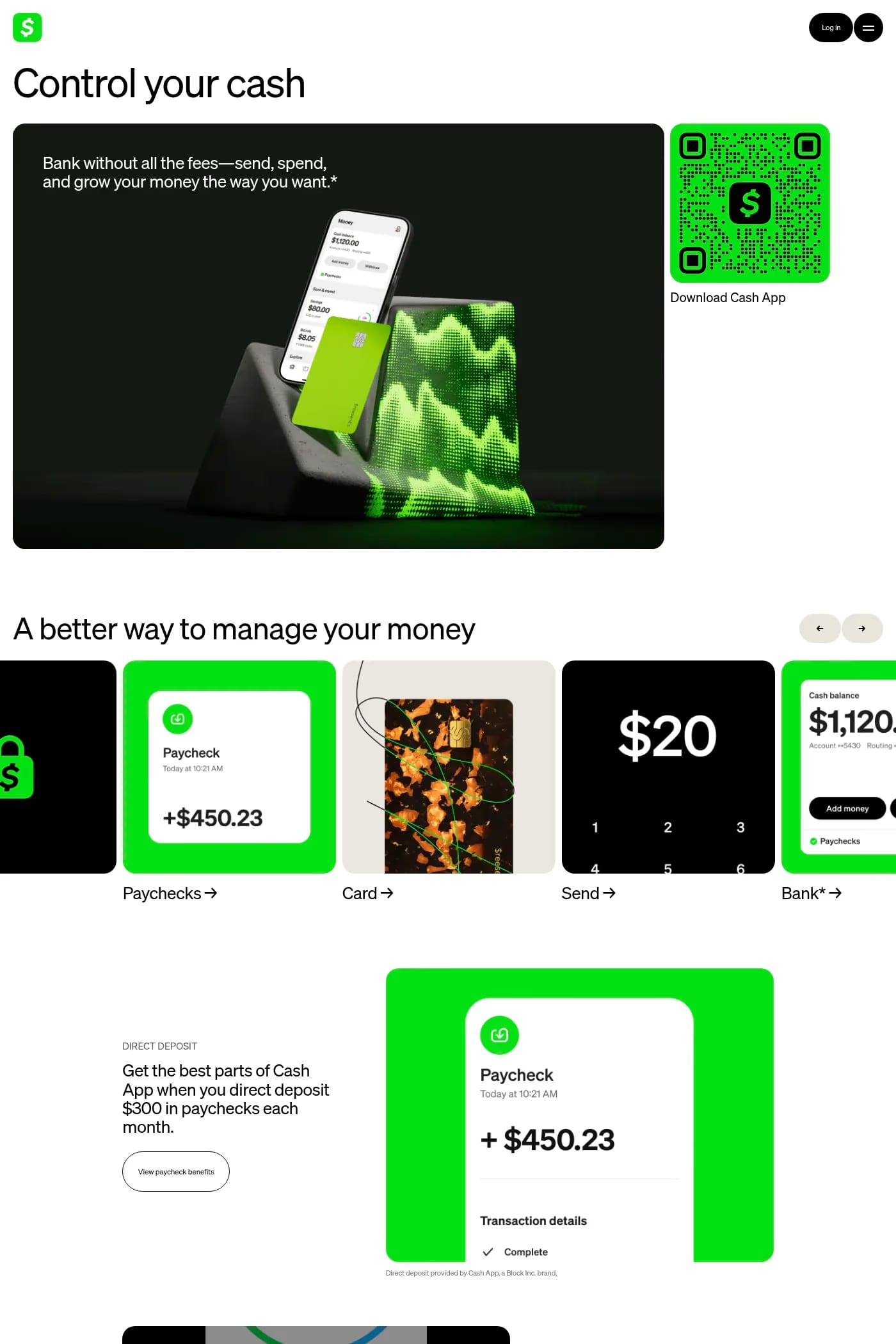
Our typeface is Cash Sans, a customized version of Söhne by Klim Type Foundry. A neo-grotesque sans serif, it offers a range of styles, allowing it to perform equally well in a variety of contexts: expressive headlines, body text, and small sizes.